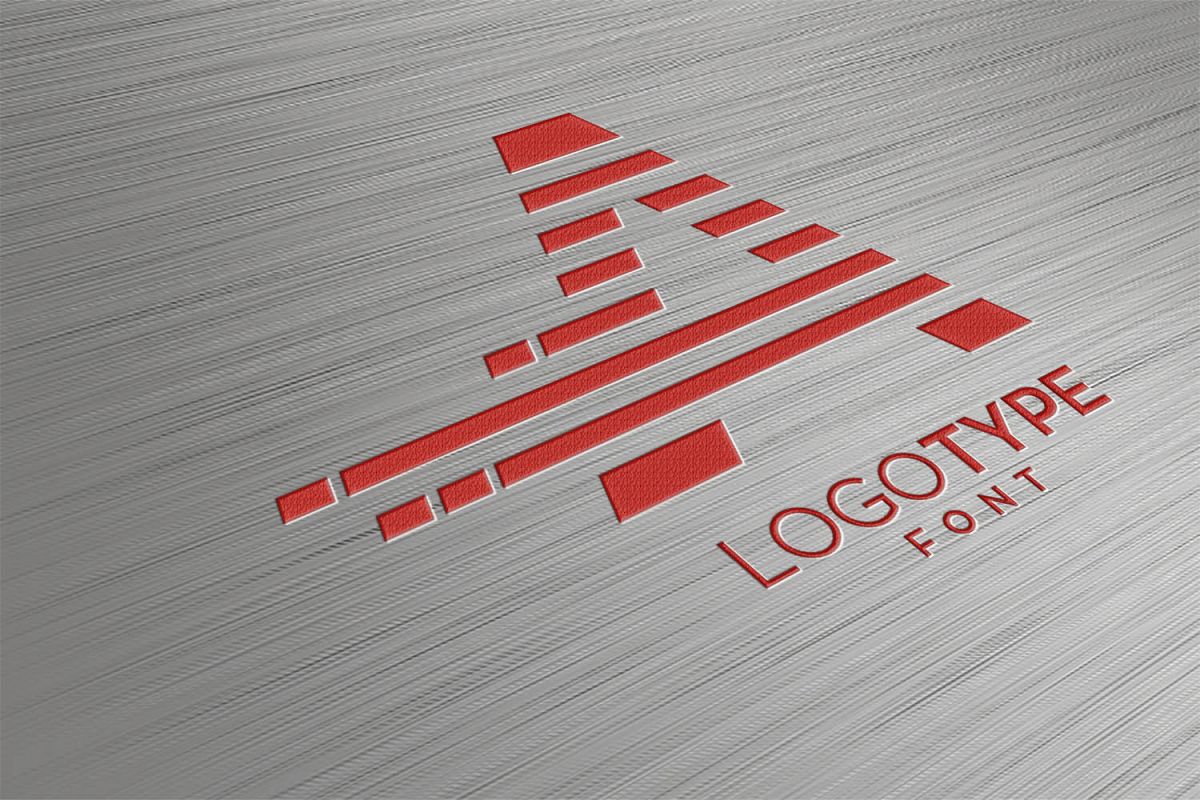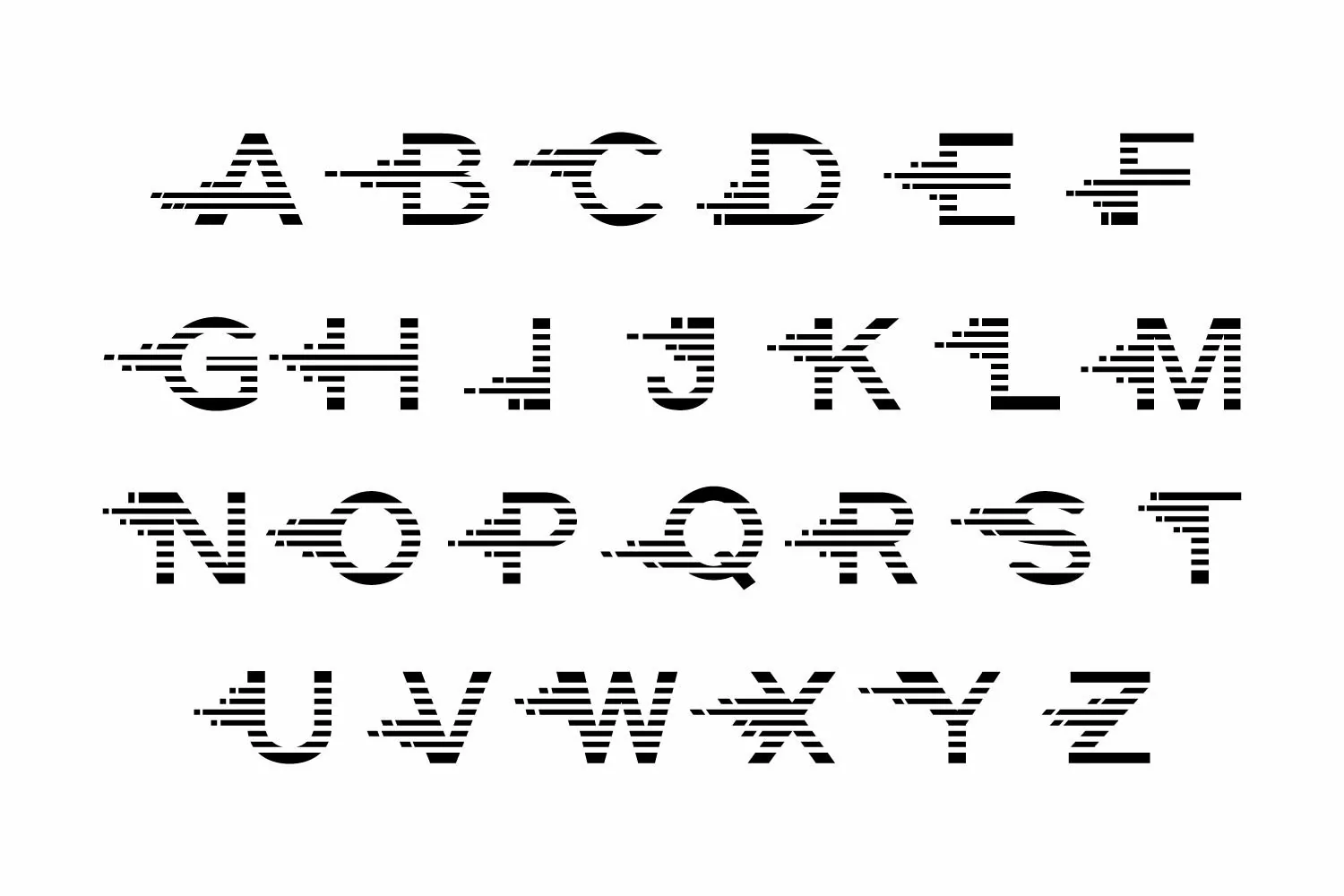
Split Monograms Font
LogotypeFont is a modern, linear art, trendy and edgy typeface with UPPERCASE characters. LogotypeFont is great for creating any type of graphic design, print, t-shirts, logos, posters, flyer, packaging, branding etc.